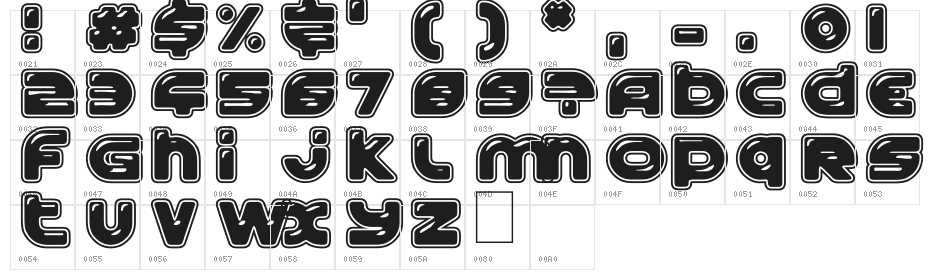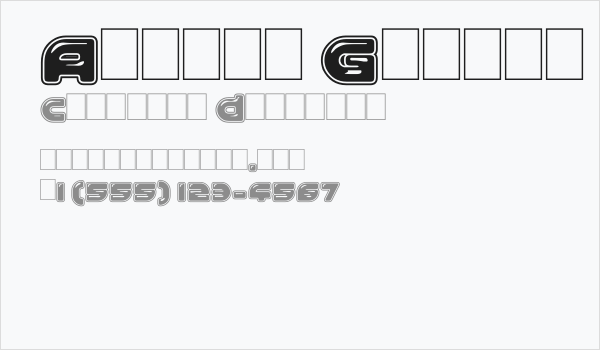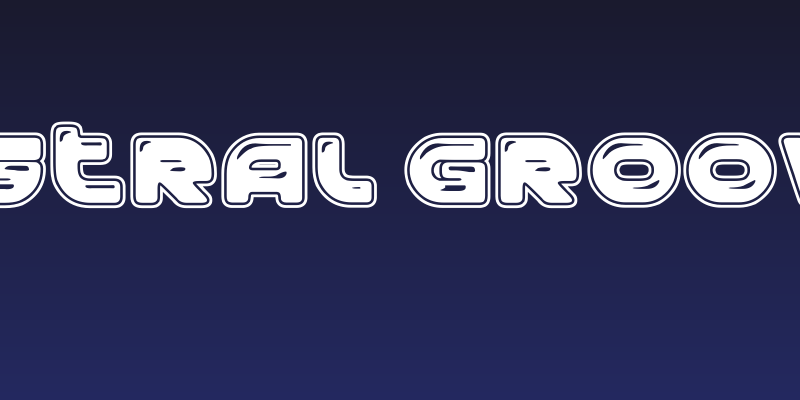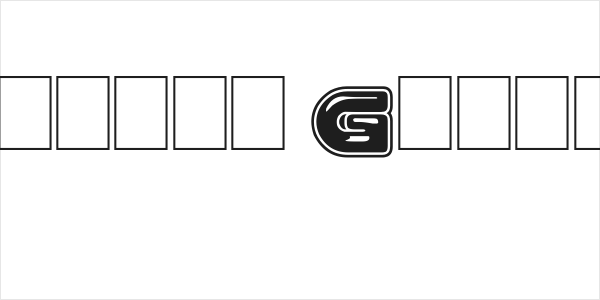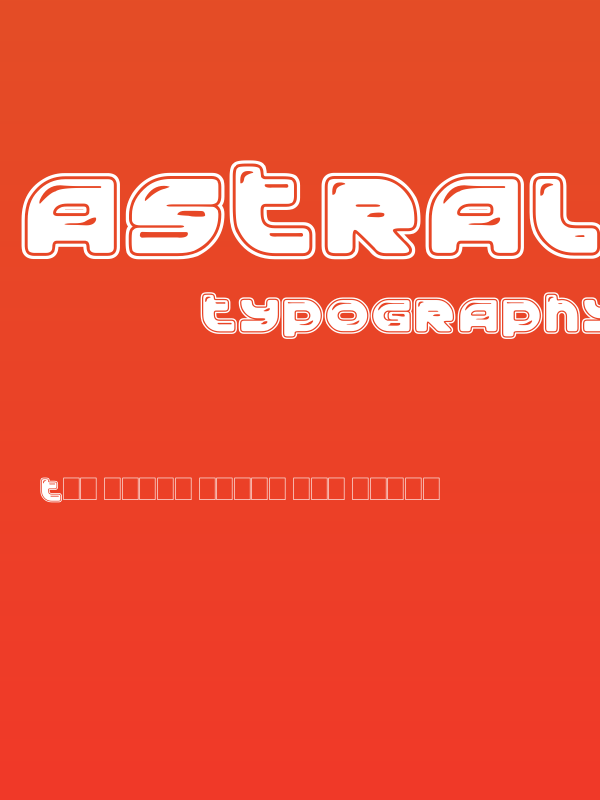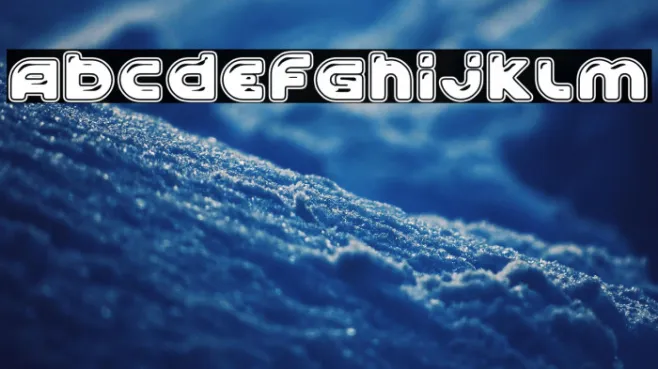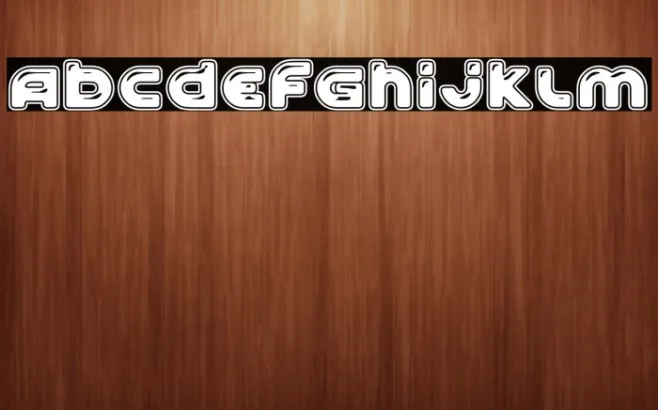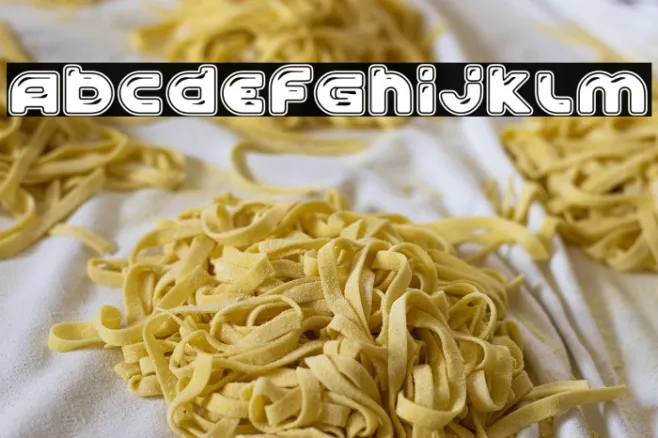
Astral Groove Font
Astral Groove Description
This font features a bold, rounded style with a distinct outline that gives it a three-dimensional appearance. The characters are uniformly thick, creating a cohesive and solid look. The rounded edges and smooth curves lend a playful and modern vibe, making it suitable for eye-catching designs. The font maintains consistent spacing between characters, ensuring readability while still offering a unique visual appeal. Its geometric structure is both contemporary and retro, making it versatile for various design contexts. The inclusion of both uppercase and lowercase letters, along with numbers and special characters, provides a comprehensive set for diverse applications.
| Proposed Projects | Ideal for posters, logos, album covers, and any project requiring a bold, modern aesthetic. |